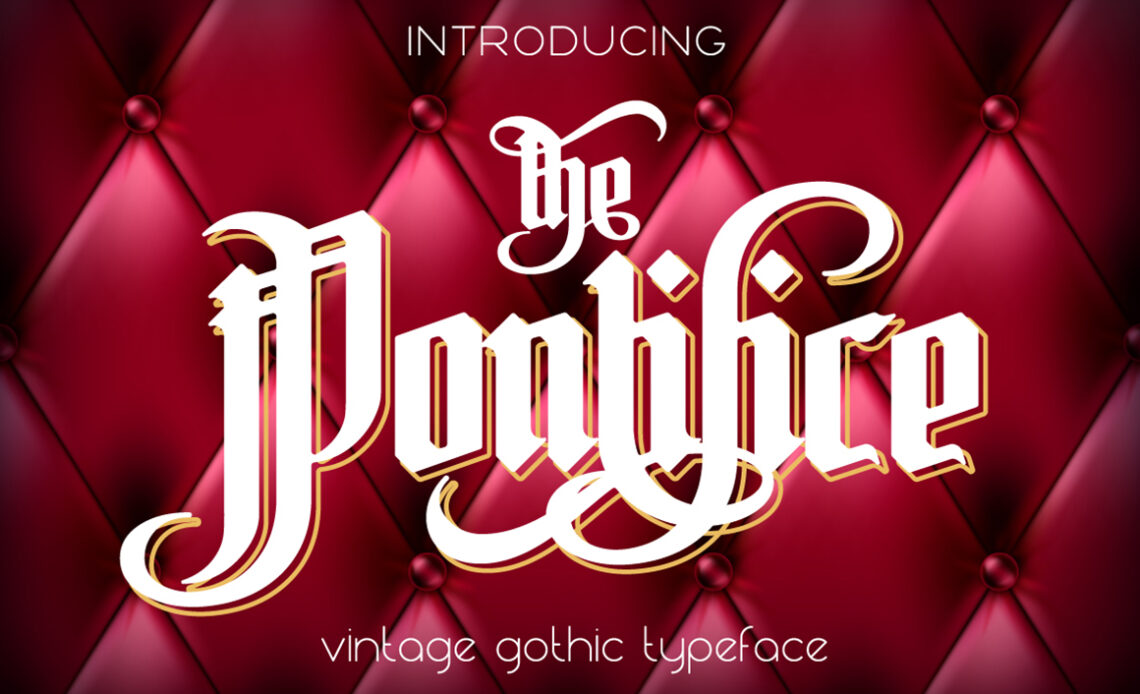
Unveil a Masterpiece of Typographic Art: The Pontifice Font - A Journey into the Realm of Enchanting Gothic Elegance
In a world where visual aesthetics reign supreme, The Pontifice Font emerges as a captivating creation, a testament to the enduring allure of gothic typography. Its meticulously crafted glyphs, adorned with soft corners and generous proportions, invite you to embark on a journey into the realm of elegance and sophistication.
The Pontifice Font, a brainchild of the renowned NREY, draws inspiration from the iconic Phoenix font, yet distinguishes itself with a touch of softness and an expanded glyph repertoire. This harmonious blend of tradition and innovation results in a typeface that exudes both timeless charm and contemporary appeal.
As you navigate through the diverse applications of The Pontifice Font, you'll discover its versatility and adaptability. Whether gracing wedding invitations, adorning branding materials, commanding headlines, or adding a touch of distinction to social media posts, this font performs flawlessly, enhancing your creative expressions with an air of sophistication.
Indulge in the sensory delight of The Pontifice Font's intricate details, where each letterform unfurls like a carefully composed symphony. Its rounded edges caress the eyes, while the balanced proportions create a visual harmony that draws the reader into your message. With The Pontifice Font as your chosen companion, your words will resonate with a newfound power and eloquence.
Unleash the boundless possibilities of The Pontifice Font and elevate your creative projects to new heights. Its timeless design ensures that your creations will stand the test of time, while its versatility empowers you to explore a myriad of applications, transforming your ideas into captivating realities.